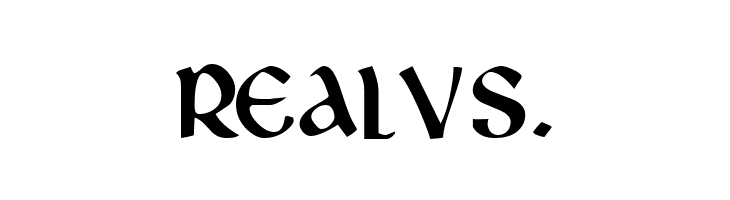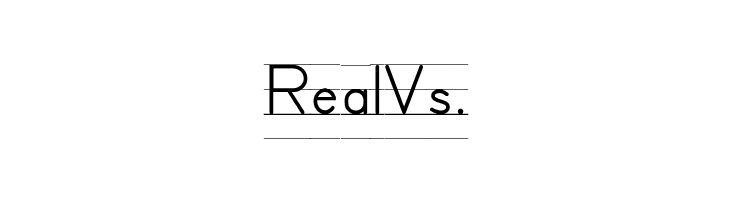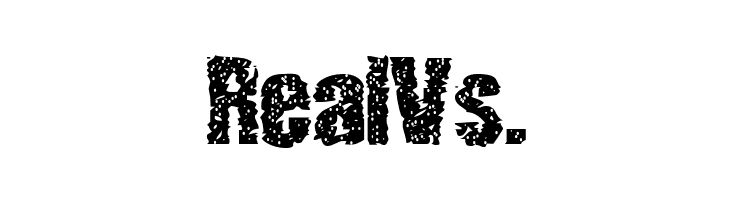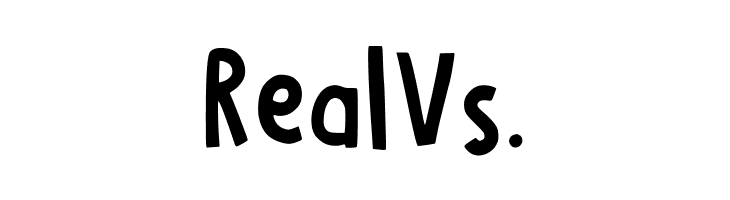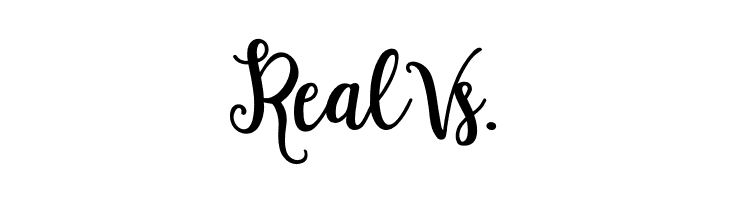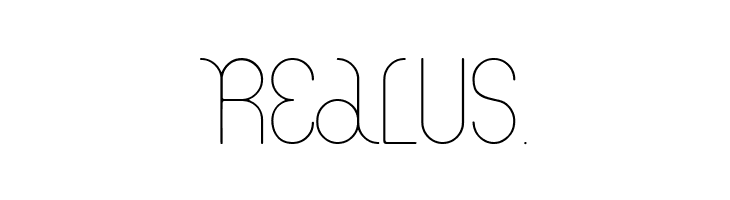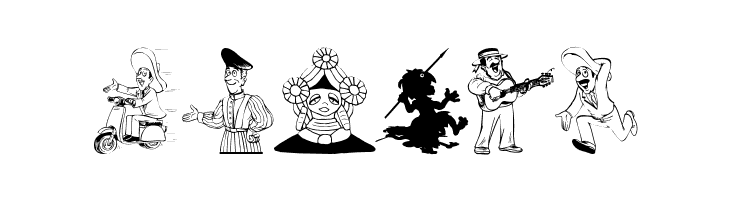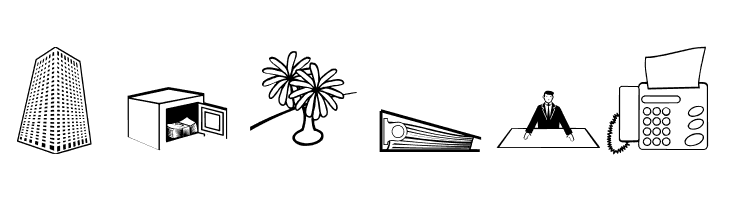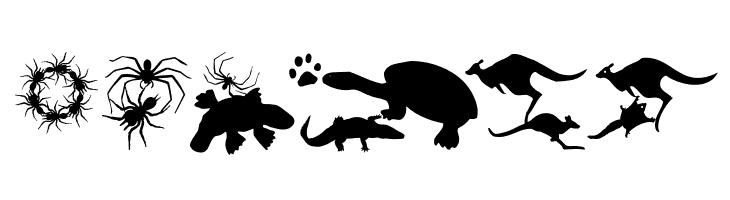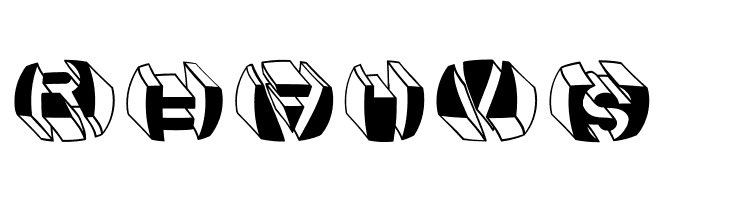
A playful and whimsical font with curly, flowing letterforms and decorative flair.
A playful, hand-drawn font with a whimsical and informal style.
A playful, legged font with bold, rounded characters perfect for whimsical designs.
A dingbat font with office and business-themed pictograms.
A modern, rounded font with uniform stroke width and excellent readability.
A sleek, italicized font with a modern and elegant style.
A bold, distressed font with a textured, weathered appearance.
A clean, structured font ideal for educational and handwriting practice.
Animal and abstract silhouette dingbat font with playful, bold shapes.
A playful, cartoon-style font with animated characters integrated into each letter.
A bold, 3D architectural font with a strong, modernist style.
A bold, architectural font with rounded shapes and high contrast.
A bold, three-dimensional font with a geometric, architectural style.
A decorative font with intricate, artistic designs within each character.
A digital, segmented font inspired by LED displays, perfect for tech-themed projects.
A digital, segmented font with a futuristic, LED display style.
A bold, geometric font with a futuristic and abstract design.
A decorative font featuring intricate animal motifs within each letter.
An ornate and decorative font with intricate illustrations in each letter.
A playful and chaotic font with bold, eclectic characters.
A whimsical, illustrated font with each letter embedded in unique artwork.
Cartoonish, illustrated font with each letter as a unique character.
A bold, hand-drawn font with a playful and chaotic style.
A bold, distressed font with a grunge aesthetic and chaotic texture.
A bold, calligraphic font with sharp, angular strokes and a traditional flair.